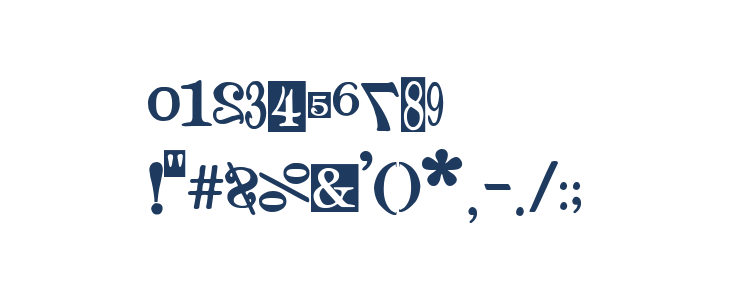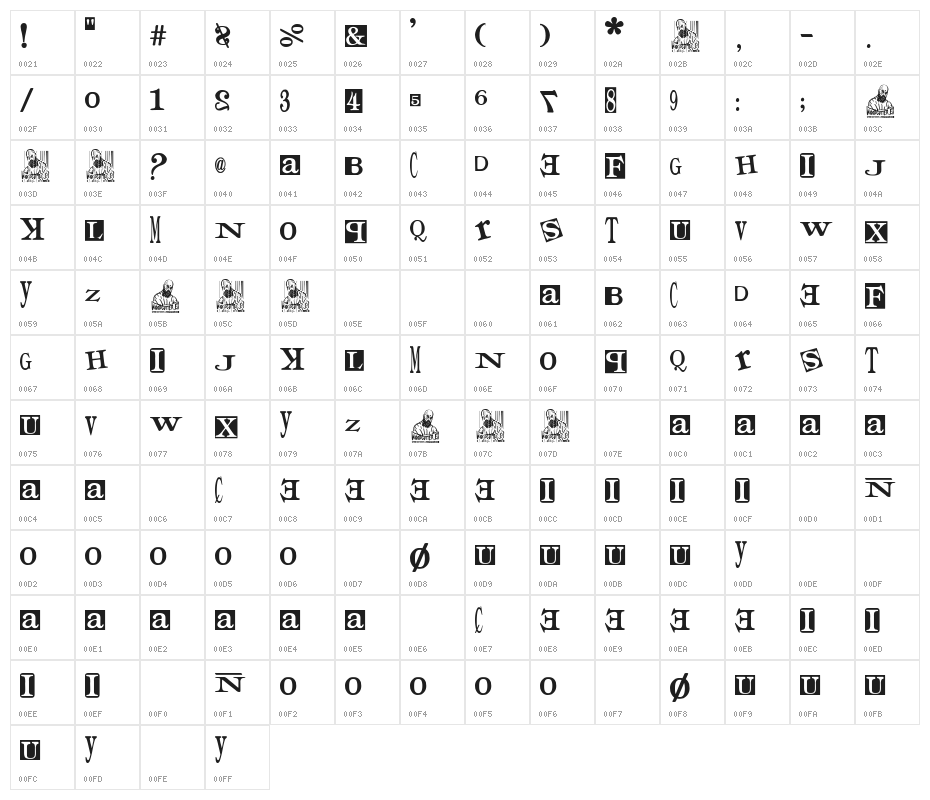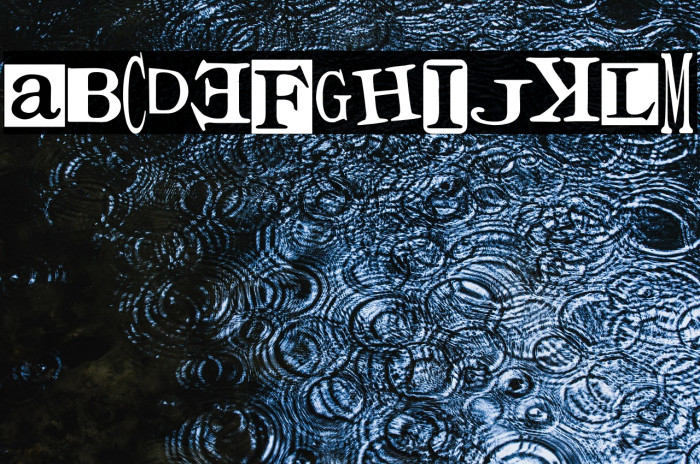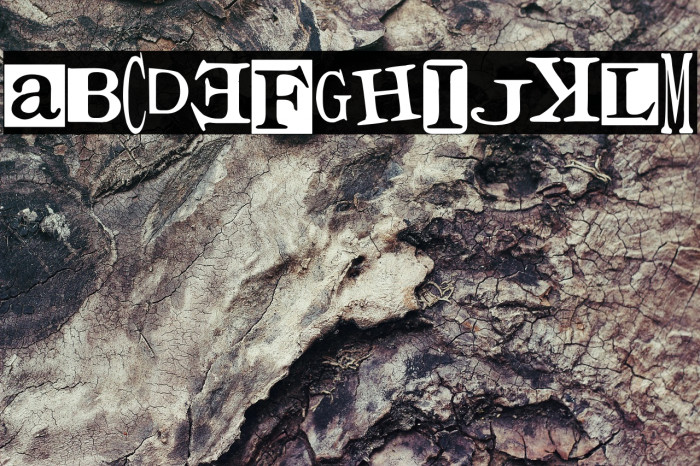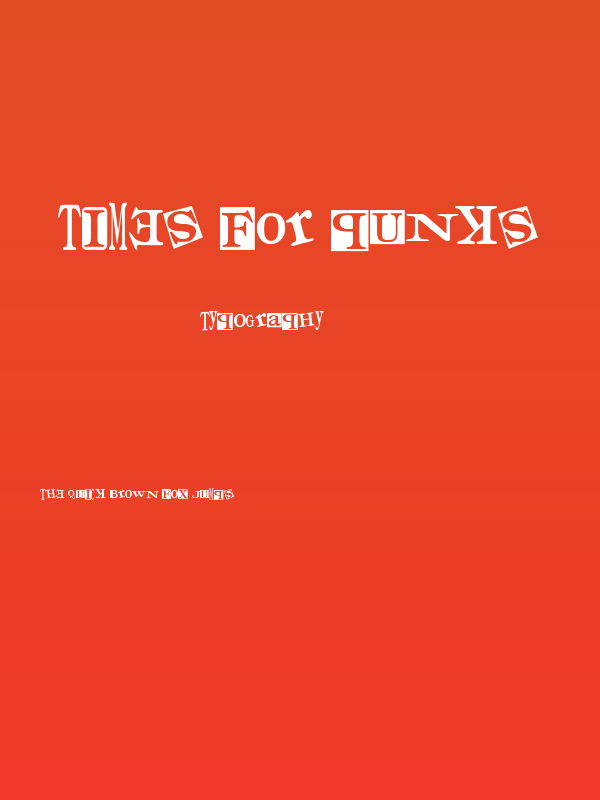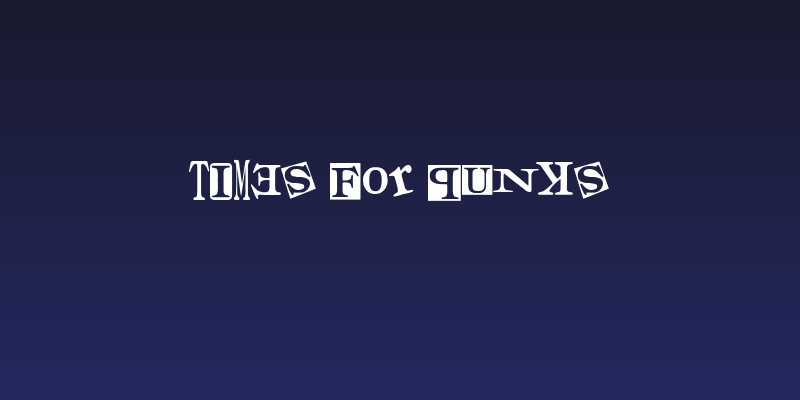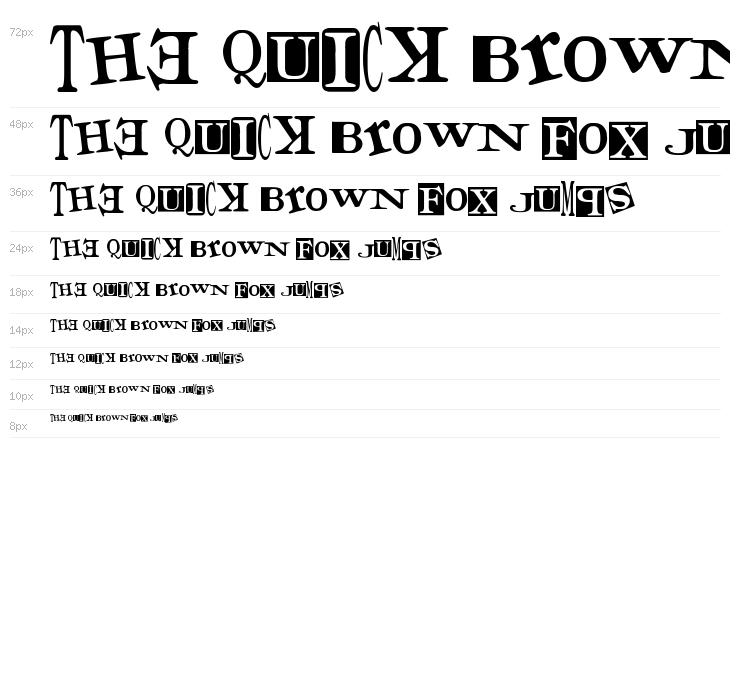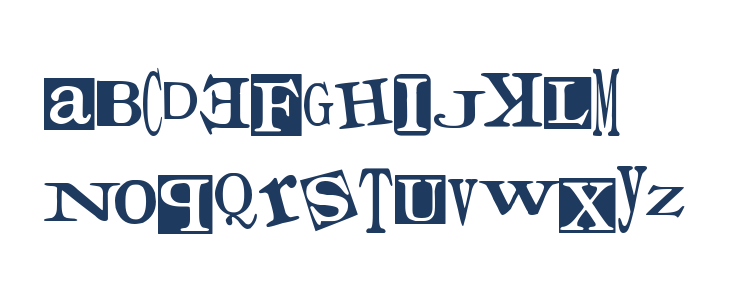
Times for Punks Font
Times for Punks Description
This font features a bold and eclectic design, combining elements of classic serif styles with a punk-inspired twist. Each character is uniquely styled, with some letters appearing in reverse or with exaggerated serifs and strokes. The mix of solid and outlined forms creates a dynamic and rebellious aesthetic. The uppercase and lowercase letters maintain a consistent height, but vary widely in their individual designs, adding to the chaotic yet artistic feel. Numbers and special characters follow the same unconventional style, making this font ideal for projects that require a bold statement.
| Overall Style | Punk, Eclectic, Rebellious |
| Proposed Projects | Ideal for album covers, posters, streetwear branding, and any project needing a bold, unconventional look. |